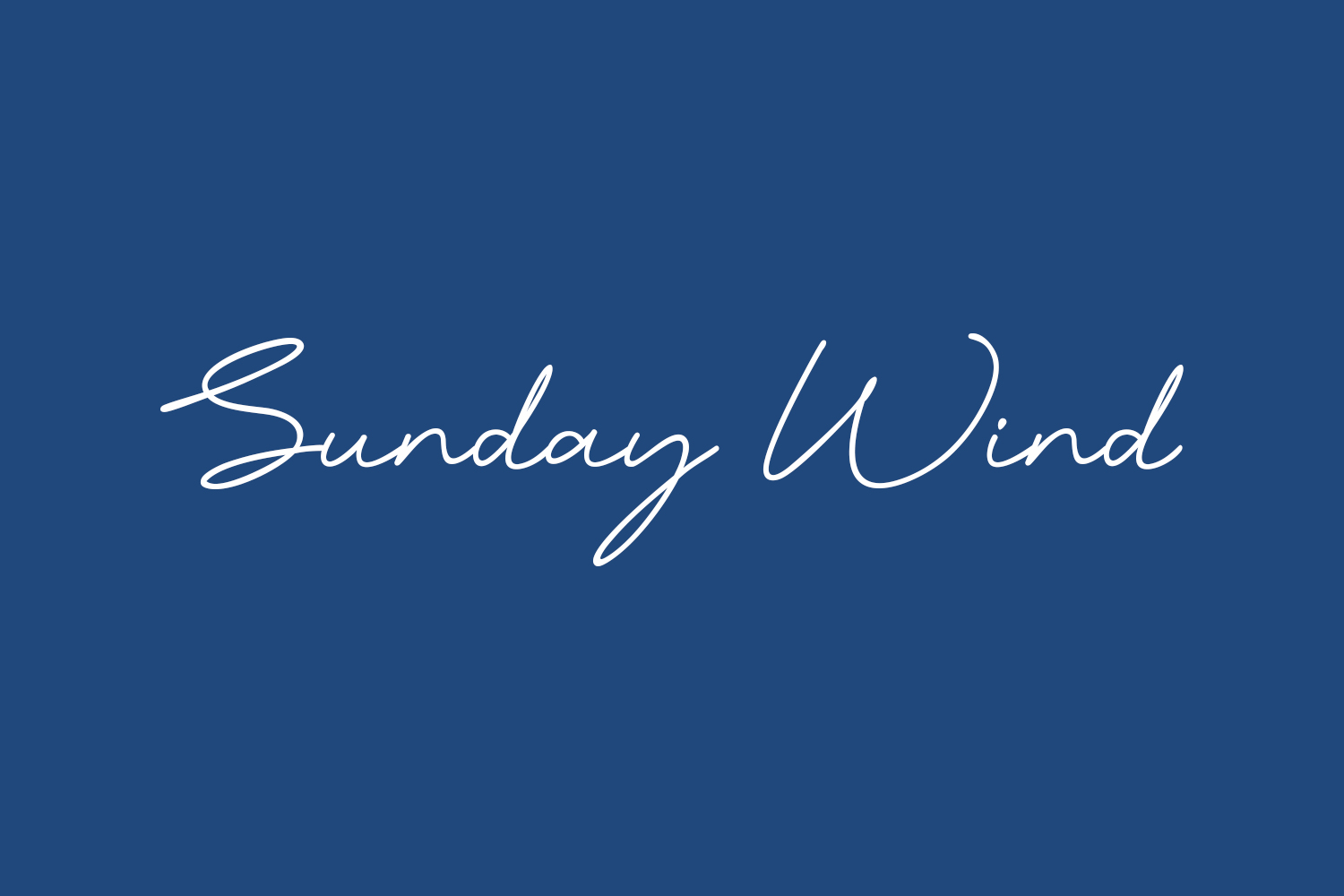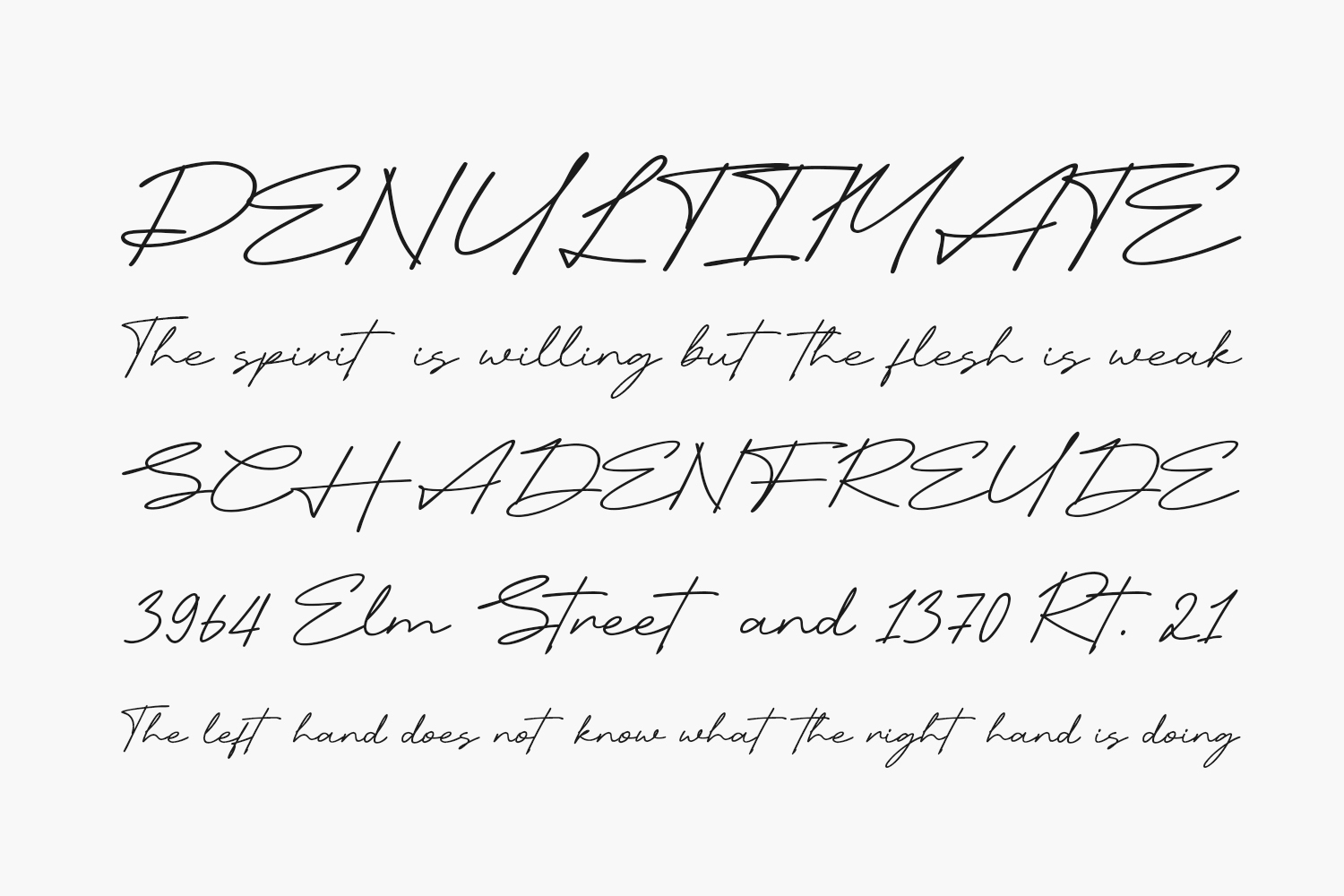
Sunday Wind Free Font presents a sleek, stylish, contemporary, and sophisticated script font ideal for a range of design applications, including posters, logos, magazines, book covers, and banners, among others. Acquire this exceptional font and utilize it to craft enchanting designs. Its versatility allows seamless integration into a vast array of projects, enhancing your creative concepts and ensuring they truly shine. Sunday Wind Free Font is free for personal use only. Please purchase the full version for commercial use.